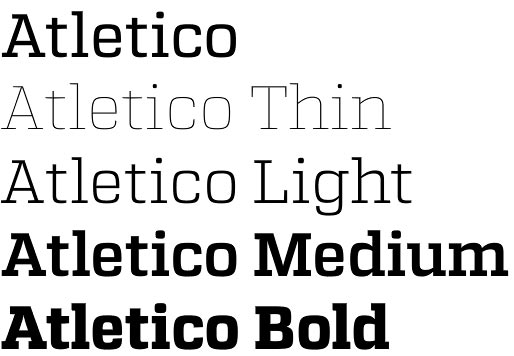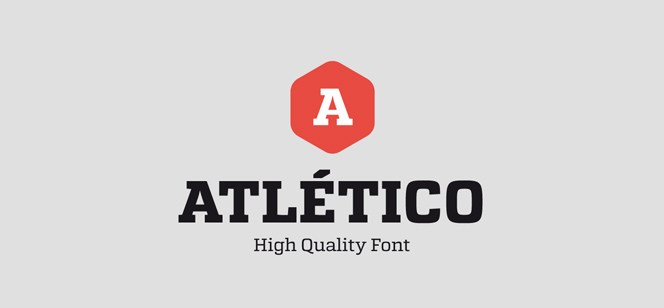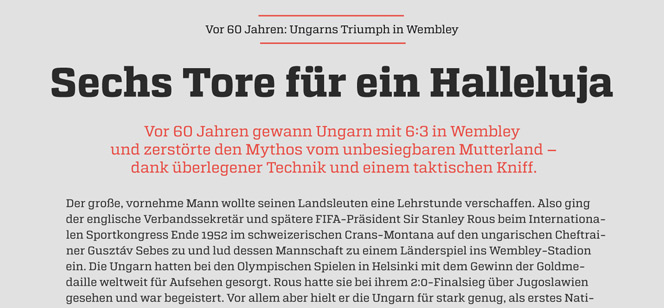
Atletico font by Stereotypes – a fresh contemporary Slab Serif
Atletico font is a fresh and original new Slab Serif family. Developed in 6 separate weights Atletico is showing own character with its smooth geometry incorporating the pure lines of contemporary sans serifs with specific roundness in apertures that result in unique style and excellent performance in legibility. Serifs are optimized for this premium design and in some letters their meaning is elegantly changed harmonizing with each letterform. Atletico looks energetic, a bit sporty but serious and prominent at the same time. Adding italics in future will make the whole family even more sophisticated, useful and attractive.
All in all this is a font family with fresh contemporary look perfect for editorial designs, posters, food packaging and important sport events. Use it with OpenType compatible software to reveal its true beauty and potential unlocking a set of alternates, multilingual characters and ligatures.
Atletico is highly recommended for e-books, web sites and other screen applications.